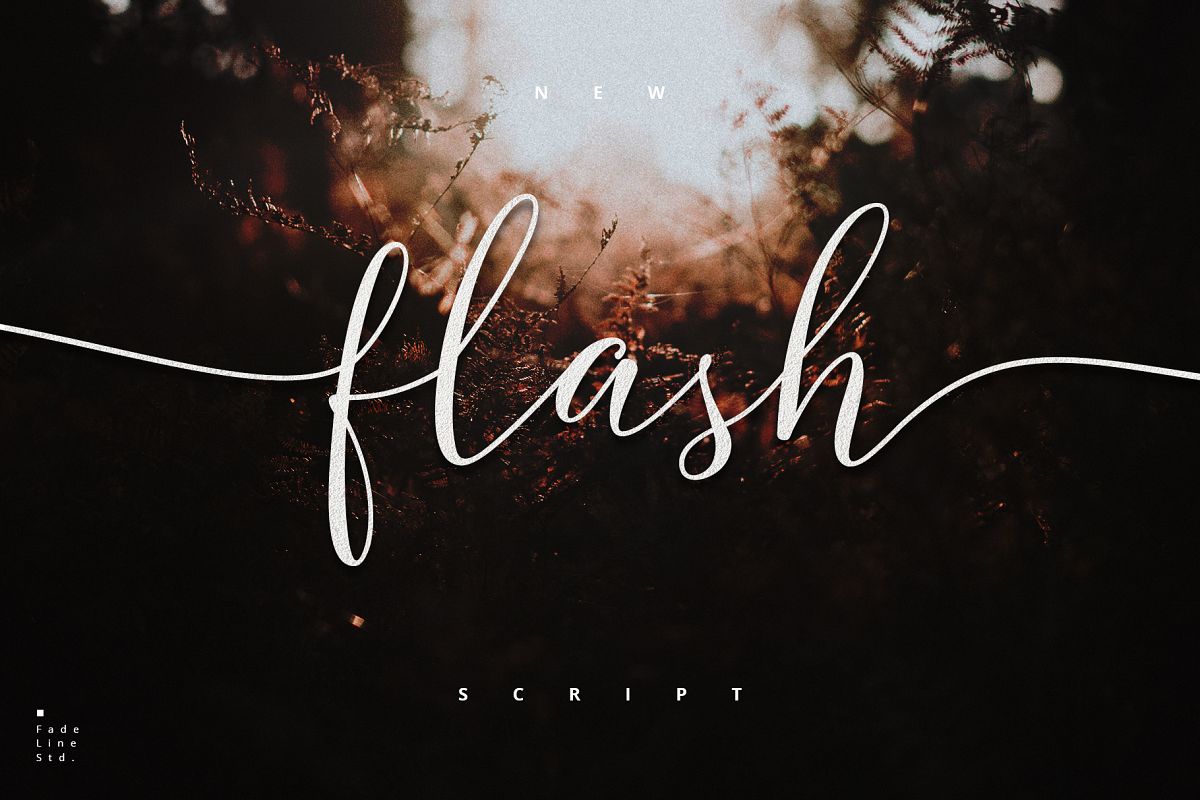
Flash Script - Update Latin Pro!
Introducing Flash Script!
This is a new modern script font. This is a beautiful font with an upright style. Made by soft and slowly aims to give the character of modern writing that is smooth, cute, simple, stylish and sweet. This font can be used anywhere as the main font or as a pairing font! Please try and I hope you enjoy it!
With a style like this, this font will be suitable in use for logo's, branding projects, homeware designs, product packaging, mugs, quotes, posters, shopping bags, logo's, t-shirts, book covers, name card, invitation cards, greeting cards, and all your other lovely projects.